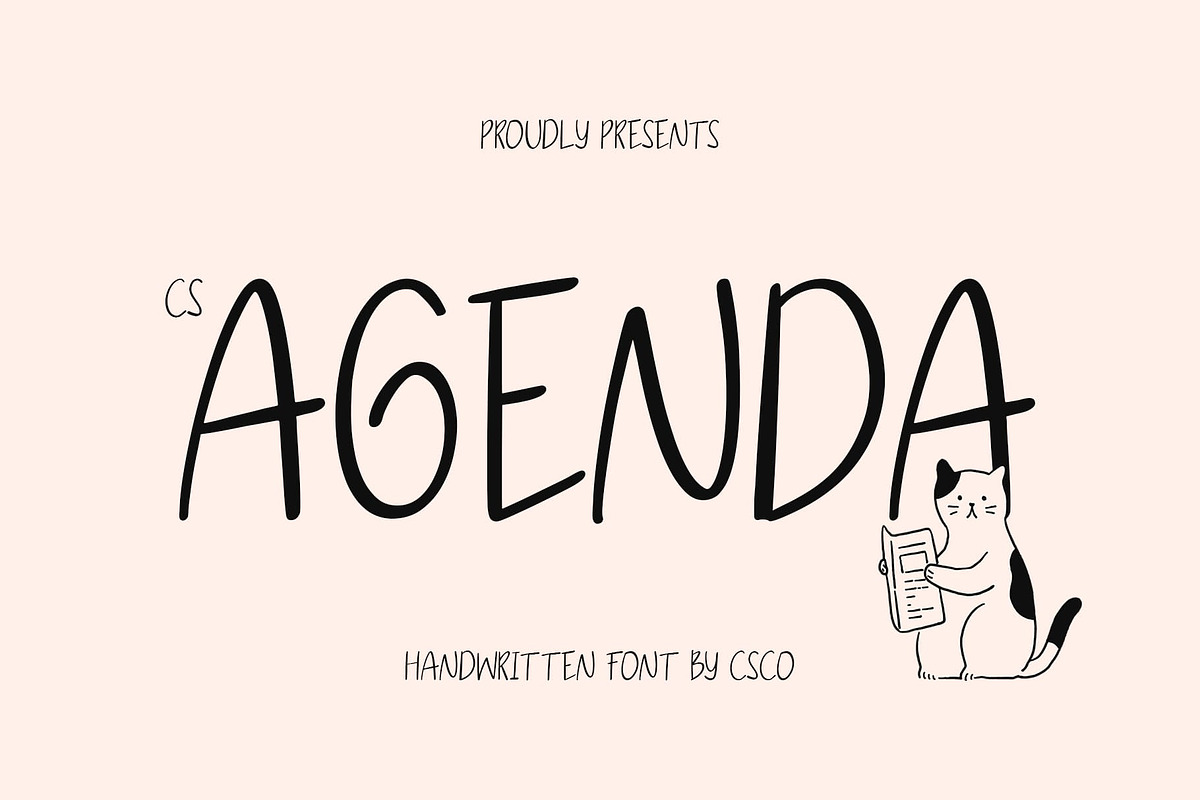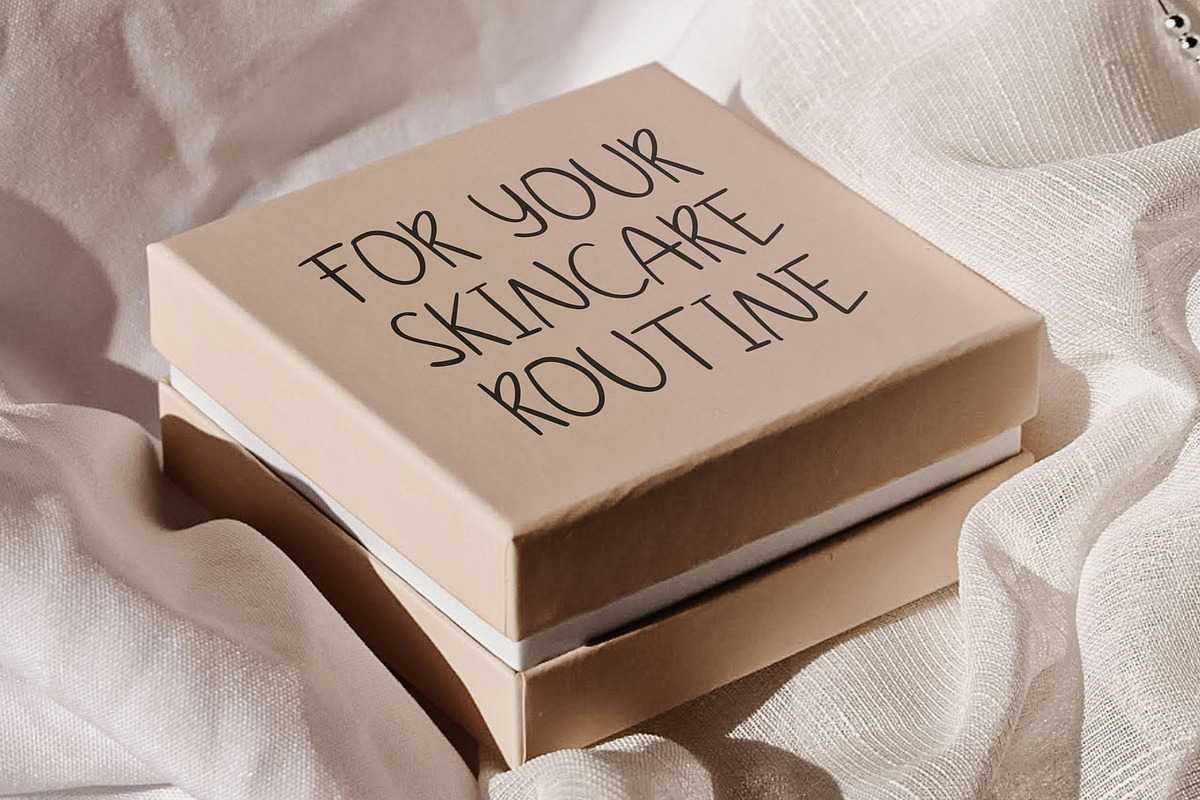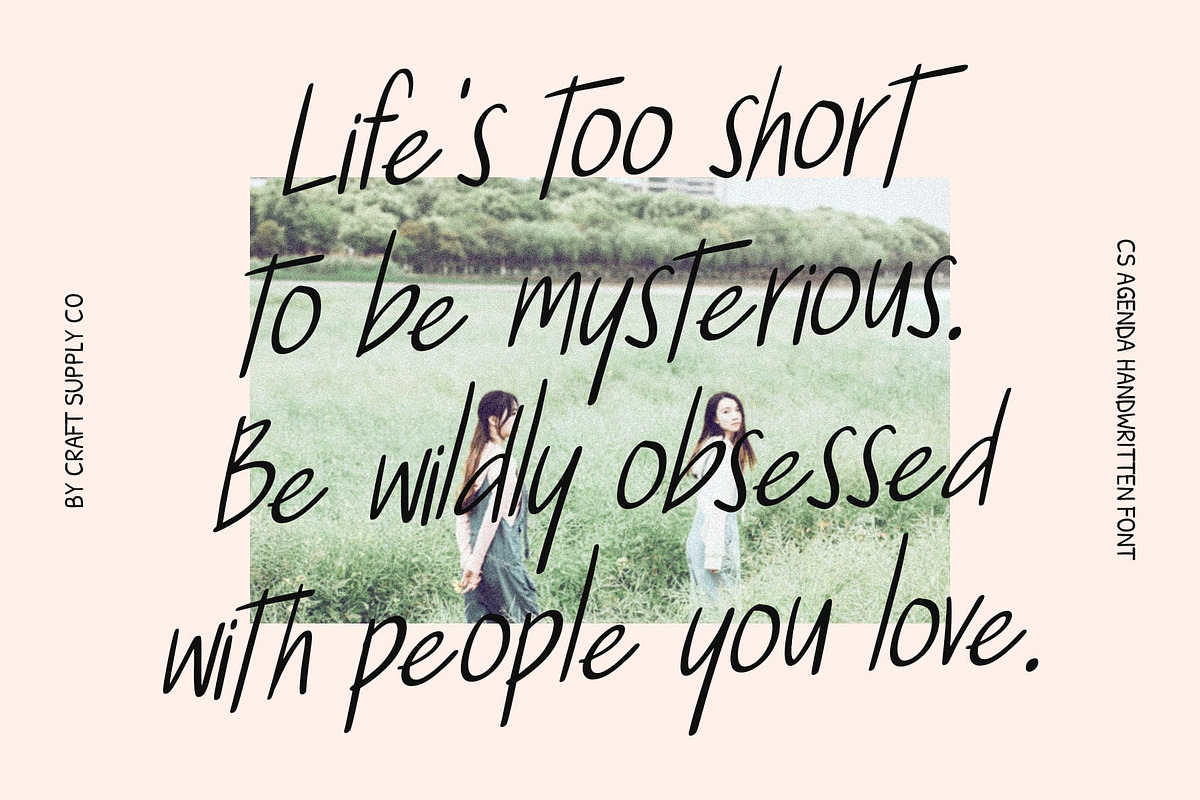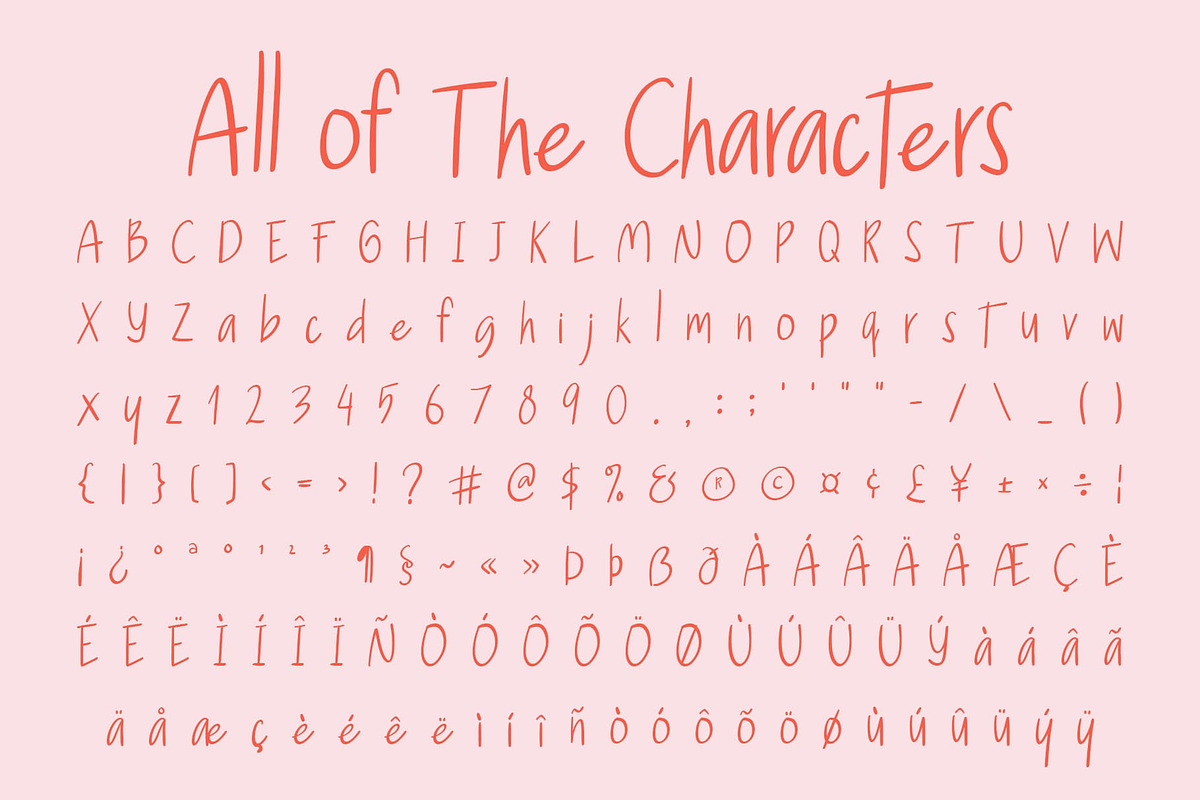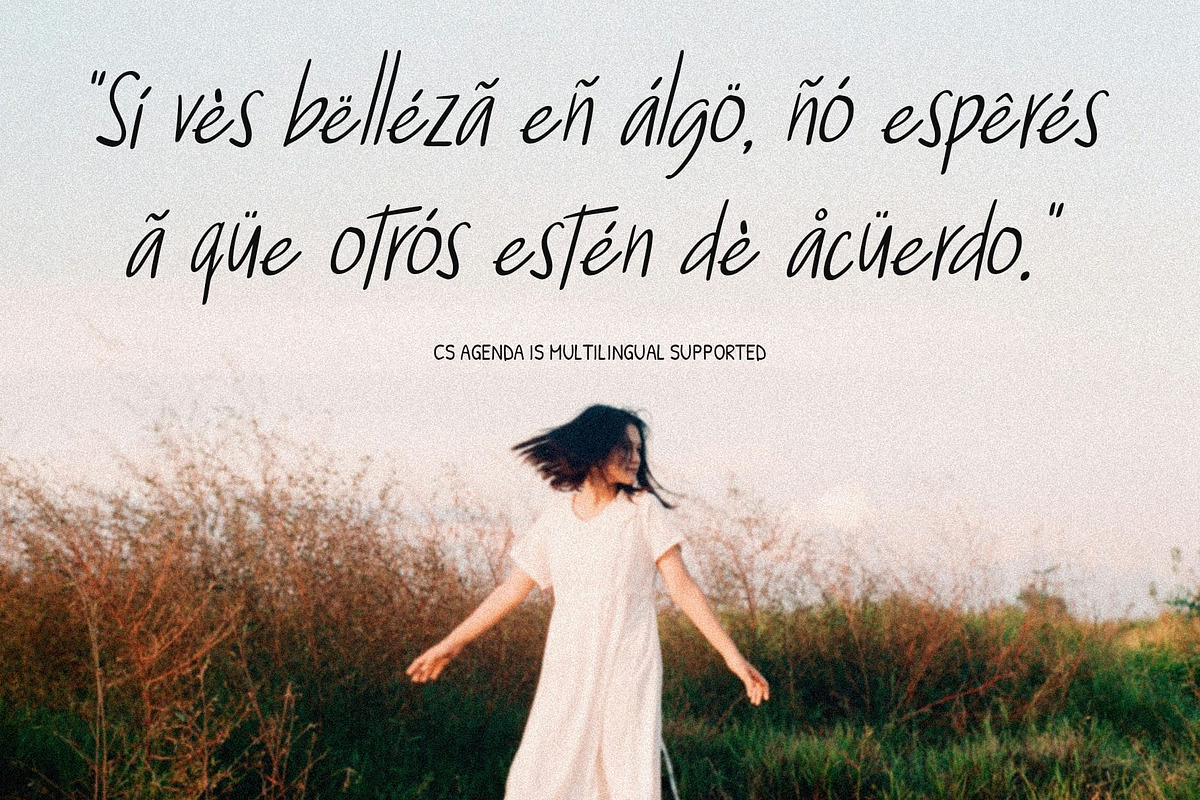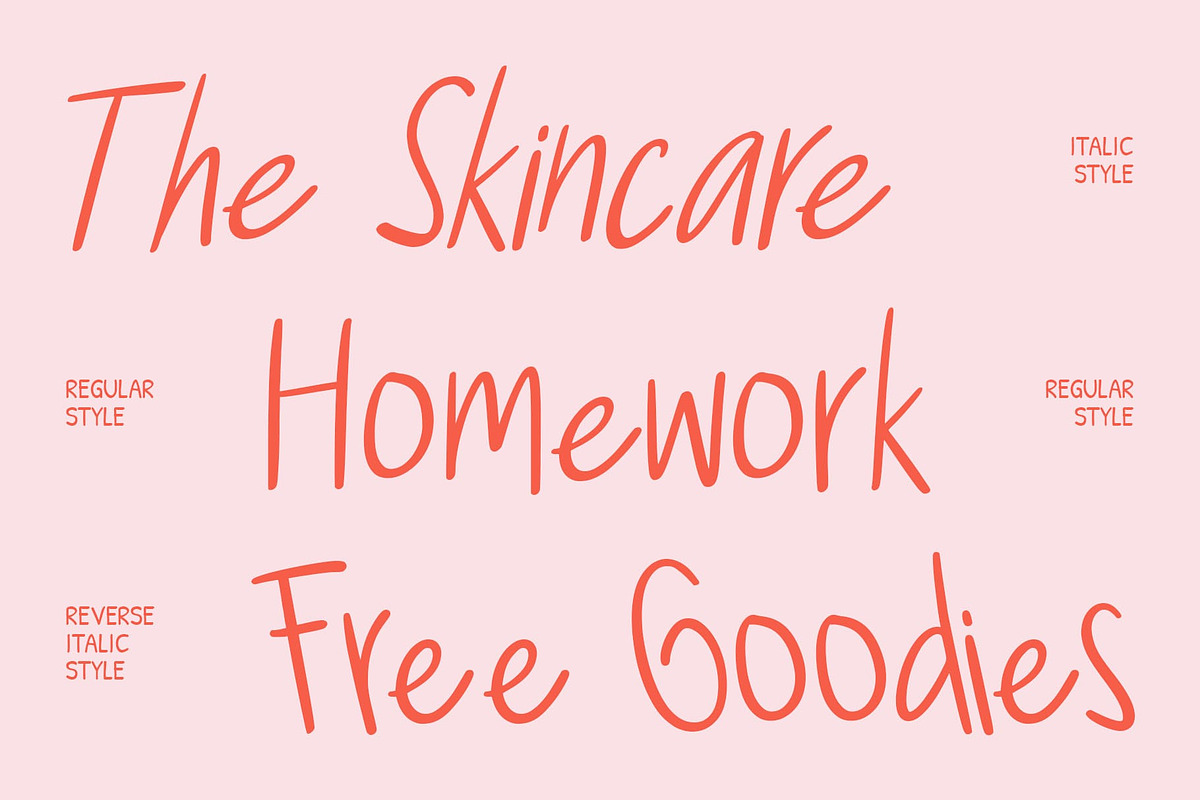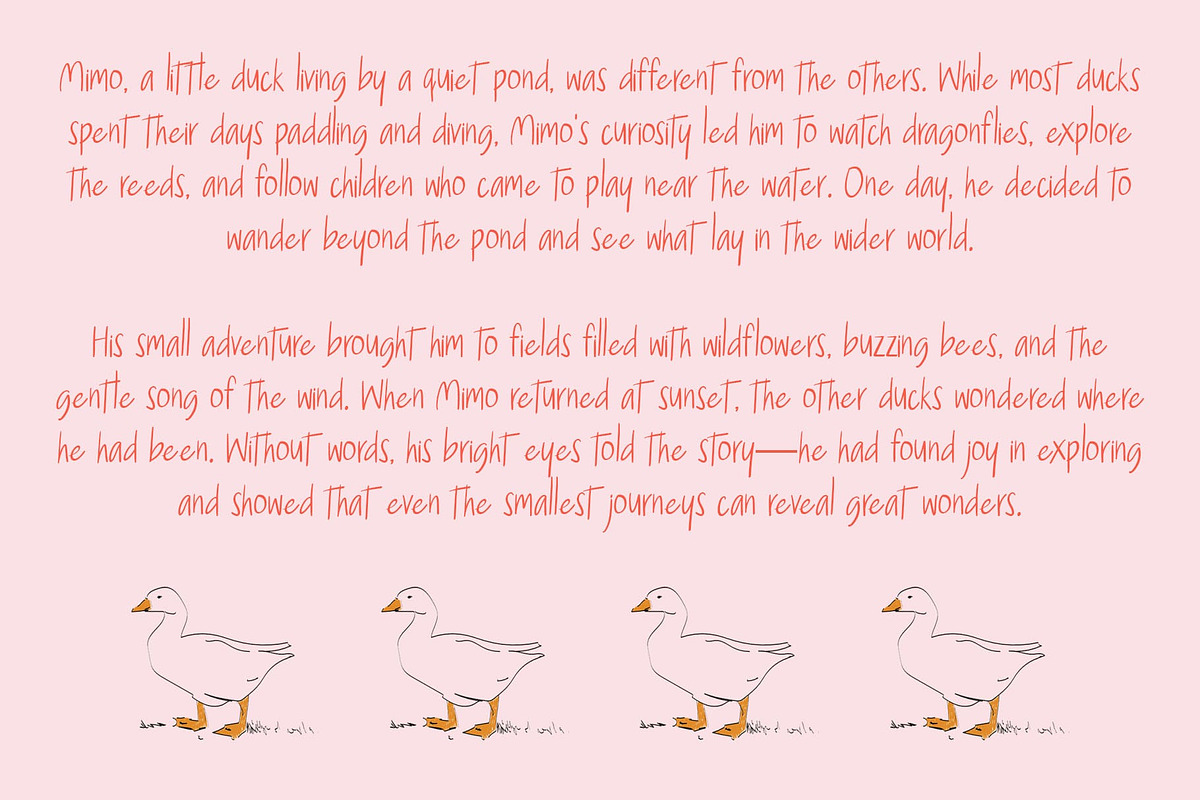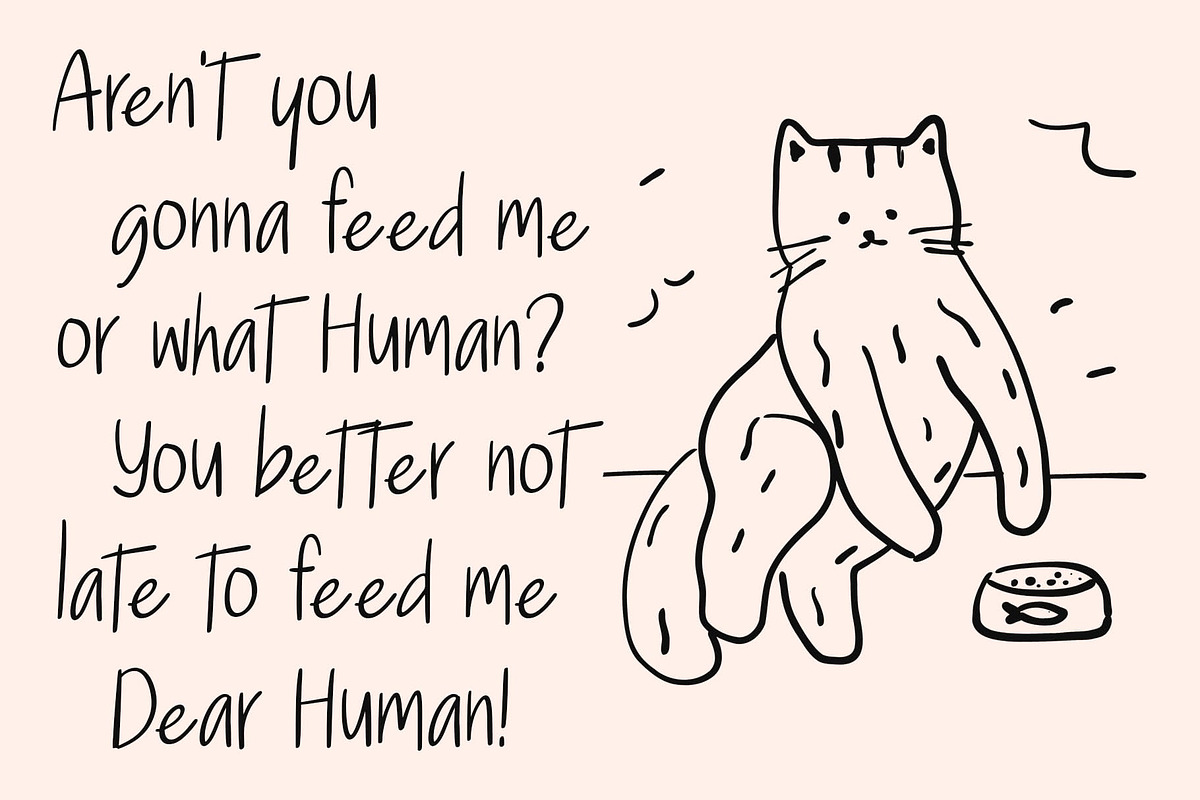
CS Agenda – Handwritten Font
CS Agenda – Handwritten Sans Font with Modern Personality: Where Handwritten Warmth Meets Sans Serif Clarity
Casual Elegance with a Human Touch This font blends the charm of casual handwritten strokes with the structure and clarity of a sans serif. Its design captures the friendliness of handwriting while retaining the clean balance of modern typography, making it approachable and stylish at the same time.
Readable and Versatile Design The subtle handwritten texture softens the sans serif framework, giving the font a natural, personal character. This balance ensures that a font remains easy to read while still carrying a distinctive personality, perfect for both display and text use.
Perfect for Branding and Creative Projects Whether used in branding, packaging, or posters, this font delivers a warm and authentic presence. Its approachable look resonates with audiences, making it ideal for businesses and projects that want to emphasize creativity, friendliness, and originality.
Balancing Professionalism with Personality This font stands out because it merges two worlds: the expressive quality of handwriting and the refined structure of sans serif design. This dual nature makes it flexible for everything from casual editorial layouts to polished corporate materials.
- CS Agenda Regular
- CS Agenda Italic
- CS Agenda Reverse Italic